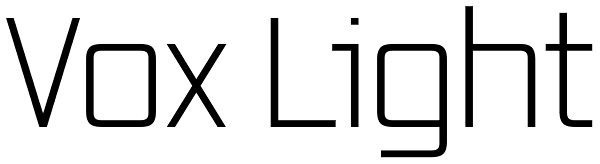
Vox
The original brief for Vox was a extensive monoline typeface that can be both precise and friendly, yet contain enough choice of seamlessly interchangeable variants for the user to be able to completely transform the personality of the typeface...